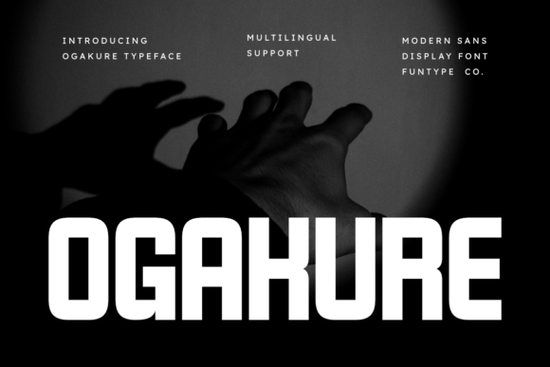
Designers, crafters, and small business owners often look for fonts that can make their work stand out. The Ogakure Font is one such typeface that delivers boldness and clarity in a way that’s perfect for a variety of creative projects. Whether you're working on a logo, a poster, or custom merchandise, Ogakure offers a strong visual presence that commands attention. This font is especially useful for those who need a clean yet powerful look for their branding efforts.
Ogakure is a modern sans-serif display font with thick, geometric letterforms that give it a robust and industrial feel. Its design is ideal for headlines, logos, and other high-impact applications where clarity and strength are key. The font maintains a balanced structure while still delivering a commanding presence, making it a go-to choice for urban streetwear, sports team logos, and promotional materials. It works well in both digital and print formats, ensuring consistency across different mediums.
The Ogakure Font is available in OTF and TTF formats, which makes it compatible with most design software and cutting machines. This versatility allows users to integrate the font seamlessly into their workflow, whether they’re designing for web, print, or fabric. It also supports multiple languages, which is a big plus for international projects or multilingual content. The clean tracking and uniform weight of the letters ensure readability without sacrificing style.
What Makes Ogakure Stand Out?
Ogakure’s unique combination of thickness and simplicity sets it apart from other fonts. Unlike some display fonts that may be too ornate or difficult to read, Ogakure strikes a balance between boldness and legibility. This makes it suitable for a wide range of uses, from large-scale posters to small product labels. Its industrial aesthetic also gives it a modern, professional look that can elevate any design project.
Best Uses for Ogakure Font
One of the best ways to use Ogakure is in headline designs where you want to make a strong impression. It works particularly well for branding, such as for clothing lines, sports teams, or event promotions. The font's clean structure ensures that even when used at larger sizes, it remains sharp and readable. It’s also great for custom vinyl decals, screen prints, and other printed materials that require a bold, eye-catching look.
Another area where Ogakure shines is in promotional posters and advertisements. Its authoritative presence helps draw attention without being overwhelming. For small businesses or independent designers, this font can help create a professional and cohesive brand identity. It’s also a good choice for print-on-demand sellers who want to offer unique, high-quality designs to their customers.
How to Use Ogakure in Your Projects
To get the most out of Ogakure, start by experimenting with different sizes and placements. Since it’s a display font, it’s best used in smaller quantities rather than as a body text. Pair it with simpler fonts for contrast, or use it on its own for maximum impact. You can also adjust the spacing and weight depending on your design needs.